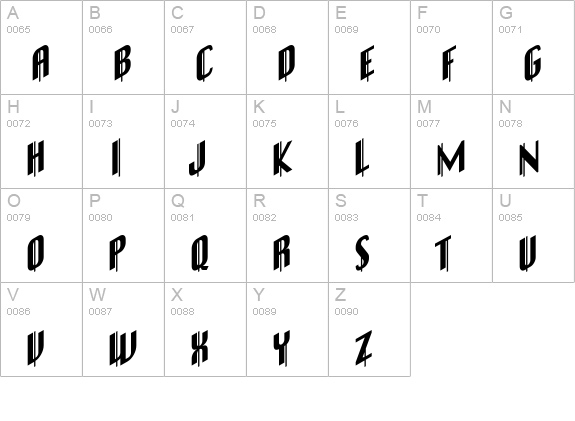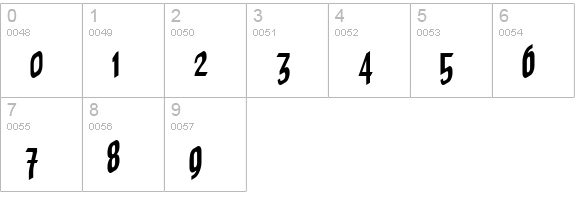
OldeChicago Font Details
OldeChicago font exudes a timeless elegance with its classic and sophisticated design. This vintage-inspired typeface boasts intricate details and ornate flourishes that harken back to the charm of old-world craftsmanship. Perfect for adding a touch of nostalgia and sophistication to your projects, OldeChicago font is a versatile choice for a wide range of design applications. And the best part? OldeChicago font is available for free download at FontsMarket.com. Simply visit the website and add this stunning font to your collection with just a few clicks. Embrace the beauty of yesteryear with OldeChicago font and elevate your designs with its timeless appeal.